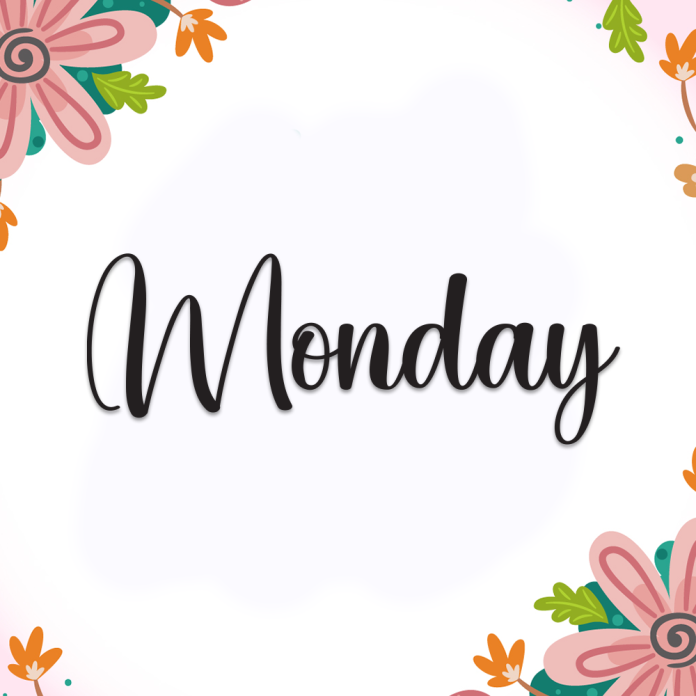
Monday is a delightful handwritten font that brings freshness and positivity to your designs—just like a bright new week. Its soft curves and flowing lines offer a relaxed, personal feel, making it ideal for planners, quotes, social media posts, and creative branding.
Whether you're designing for a cozy blog or a cheerful product, Monday adds a warm and welcoming touch.
Gentle and uplifting handwritten style
Perfect for quotes, journaling, branding, and lifestyle content
Start every design with a smile using Monday — your go-to font for charming handwritten vibes.